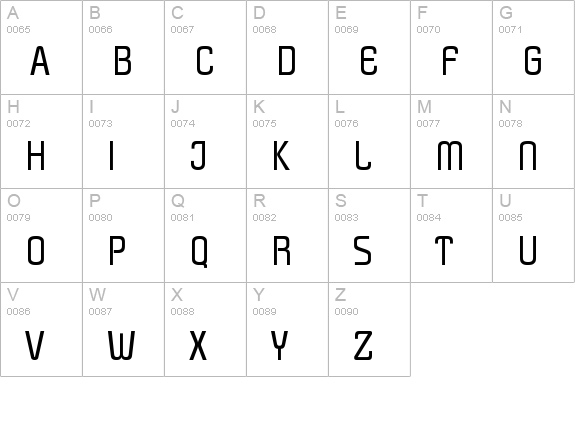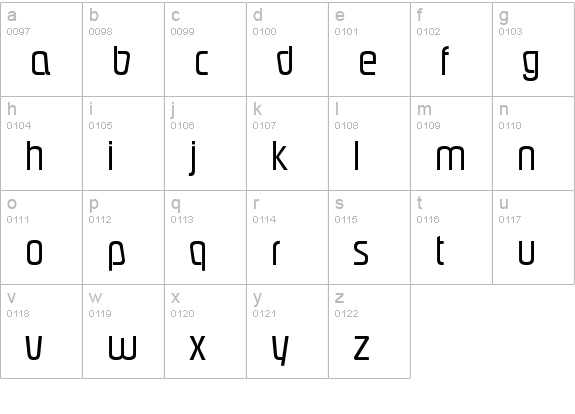
Pasadena-Regular Font Details
Pasadena-Regular is the standard, neutral variant in the Pasadena typeface family \xE2\x80\x94 well suited to general body text, paragraphs, and standard typographic work.
Pasadena-Regular is a stylish and versatile font that exudes elegance and sophistication. Its clean lines and balanced proportions make it perfect for a wide range of design projects, from branding and logos to headlines and body text. This font is the epitome of timeless beauty and its subtle curves and gentle strokes bring a touch of class to any composition. With its modern yet classic design, Pasadena-Regular is sure to catch the eye and make a lasting impression. Its legibility ensures that your message will be conveyed clearly and effectively, while its unique character adds a touch of personality to your work. Whether you're creating a professional presentation or designing a captivating website, Pasadena-Regular is the perfect choice to elevate your designs to the next level. What's even better is that Pasadena-Regular is available for free! You can easily download this font at FontsMarket.com, a trusted source for high-quality fonts. So why wait? Enhance your design projects today with the timeless beauty of Pasadena-Regular.